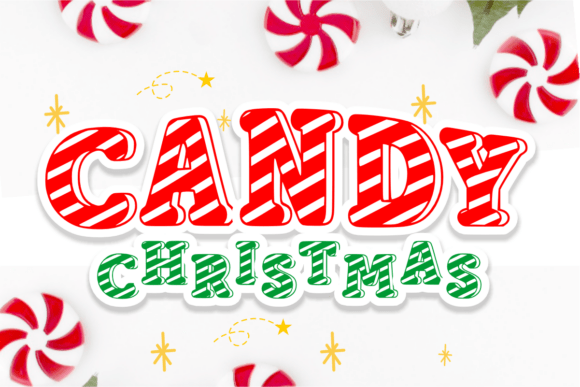
Unlock the Sweet Charm of Your Designs with Candy Christmas Font
Imagine the holiday season is in full swing, and you’re tasked with creating a festive campaign that captures the magic of winter. You’re pouring over inspiration boards, sketching out ideas, and searching for the perfect font to bring your vision to life. That’s when you stumble upon it – a font that’s as sweet as it is stylish, the perfect complement to your winter wonderland design.
Meet the “Candy Christmas Font,” a delightful, uppercase typeface designed to add a touch of whimsy and charm to your designs. This versatile font is more than just a seasonal novelty – it’s a valuable addition to any designer’s toolkit, ready to elevate your creative projects and leave a lasting impression on your audience.
With the “Candy Christmas Font,” you’ll be able to infuse your designs with a unique flavor that’s sure to delight. Whether you’re working on a holiday-themed project or simply looking to add some visual interest to your branding, this enchanting font is sure to be a hit.
Candy Christmas Font Key Features
- Font Style: A festive and playful font, perfect for holiday-themed designs.
- Character Count: Includes a wide range of characters, including uppercase and lowercase letters, numbers, and punctuation marks.
- Unique Characteristics: Features a distinctive, swirly design with a candy-like aesthetic, adding a touch of whimsy to any design.
Candy Christmas Font Review
I recently had the chance to work with the Candy Christmas Font, and I must say it’s a unique and eye-catching choice for holiday projects. Here’s what I liked about it:
- ✨ It’s super festive and perfect for Christmas-themed designs, with a playful and whimsical feel.
- ✨ The font is highly customizable, with a wide range of color and size options to suit your design needs.
- ✨ The font is easy to read, even at smaller sizes, which is a must for any font.
- ⚠️ The font is not ideal for body text, as it can be a bit overwhelming for large blocks of text.
- ⚠️ Some of the characters may not be perfectly kerned, which can affect the overall appearance of your design.
Overall, I’d say the Candy Christmas Font is a great choice for holiday projects, but may not be the best option for everyday use. If you’re looking for a fun and festive font to add some holiday cheer to your designs, this one’s a great option. Just be aware of its limitations and use it in moderation.
The Candy Christmas Font is perfect for creating festive graphics, such as:
- Holiday cards
- Gift tags
- Party invitations
- Holiday social media posts